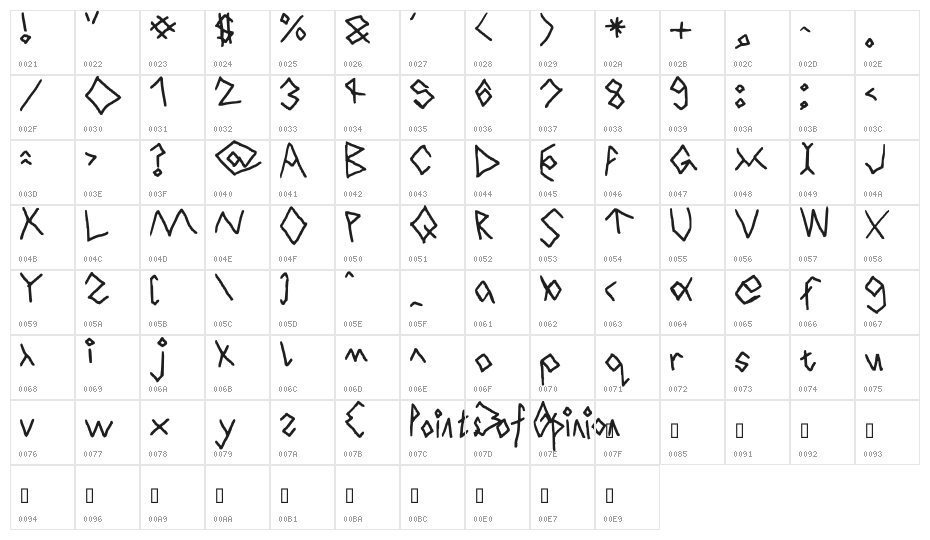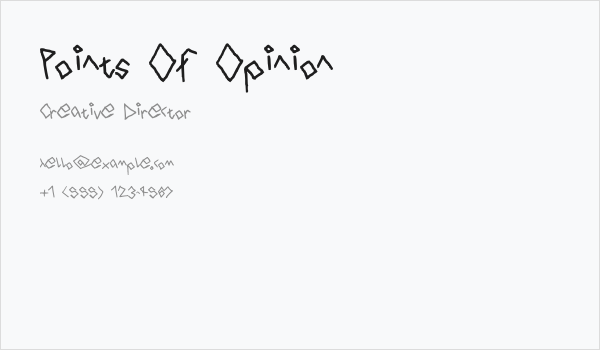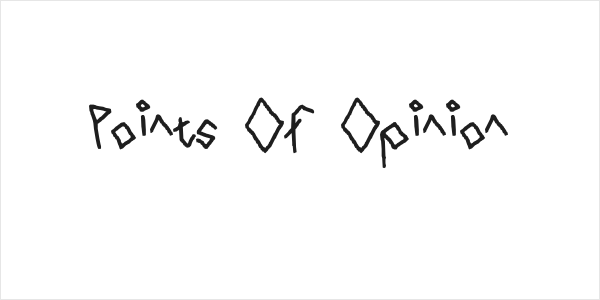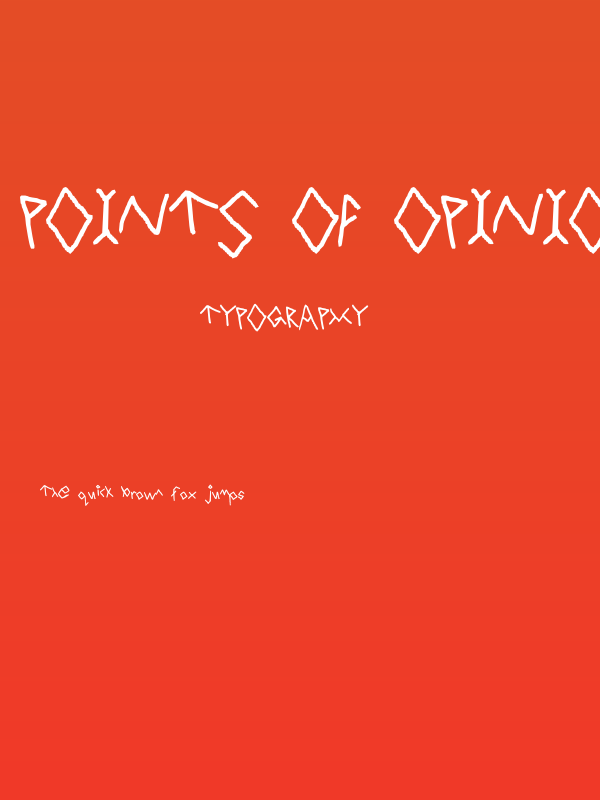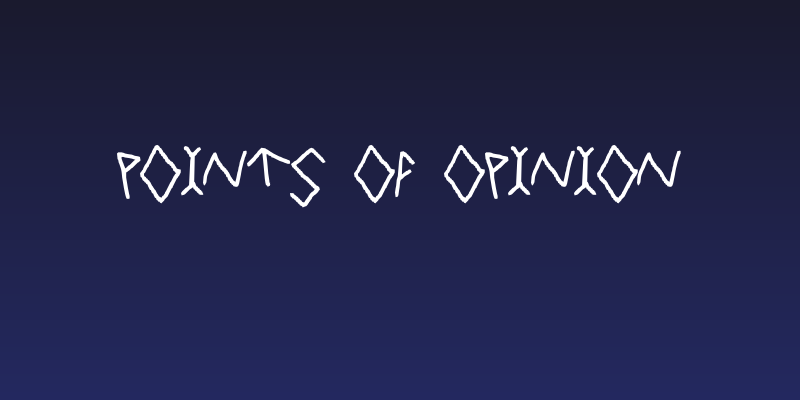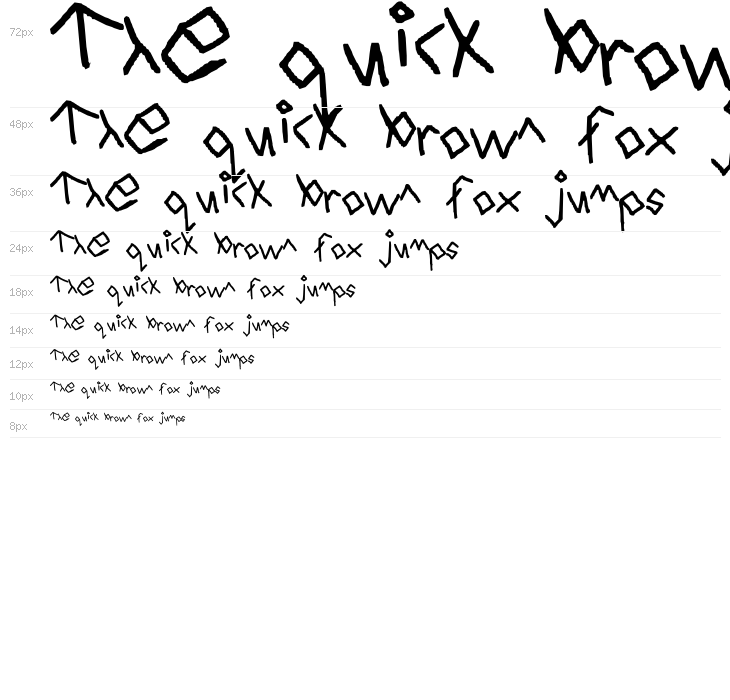
Points Of Opinion Font
Points Of Opinion Description
This font features a unique, hand-drawn style with irregular, jagged lines that give it a raw and edgy appearance. The characters are bold and slightly distorted, creating a sense of movement and energy. The uppercase and lowercase letters maintain a consistent style, with angular shapes and varying line thicknesses. Numbers and special characters follow the same aesthetic, adding to the font's cohesive look. This font is ideal for projects that require a bold, unconventional, and artistic touch.
| Proposed Projects | Perfect for album covers, graffiti art, posters, and edgy branding projects. |